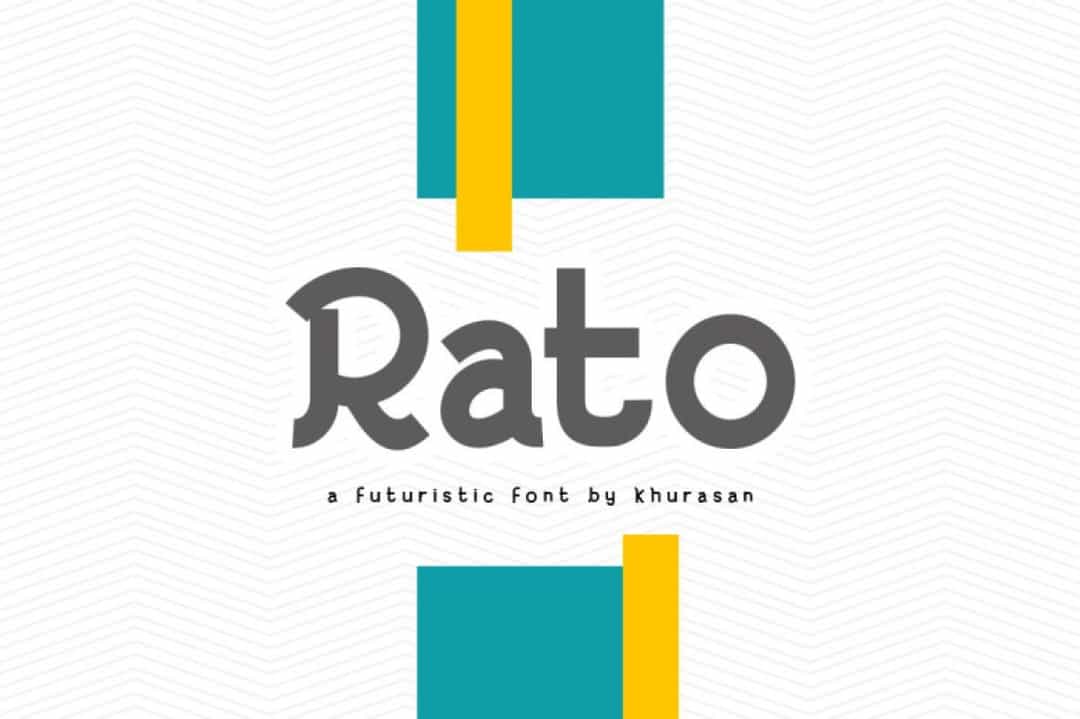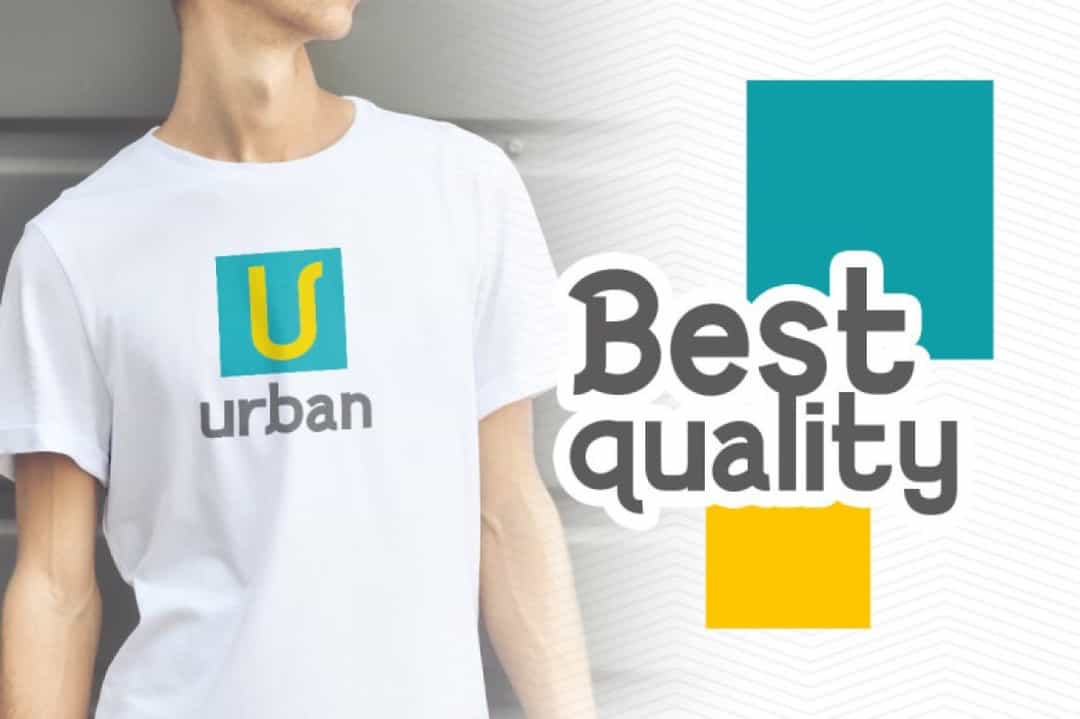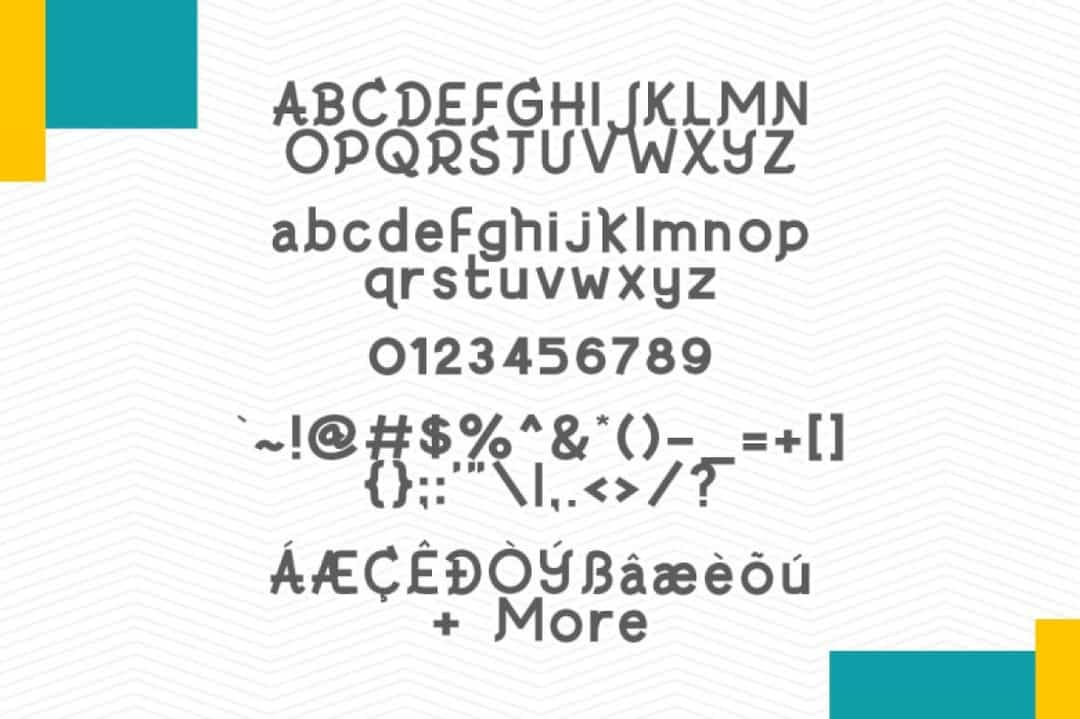
Rato is a modern sans-serif font with a soft and fluid implementation that creates an elegant feminine appearance – ideal for branding with feminine themes. Plus it can easily match to many designs; use Rato with your design ideas to see them take flight!